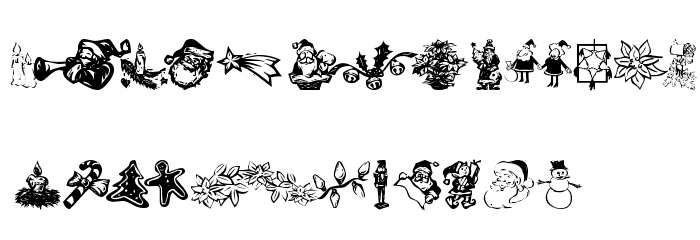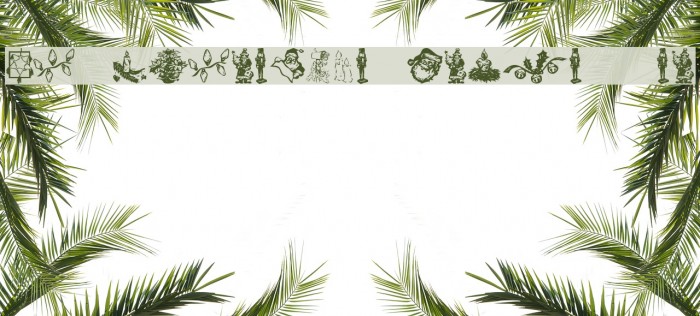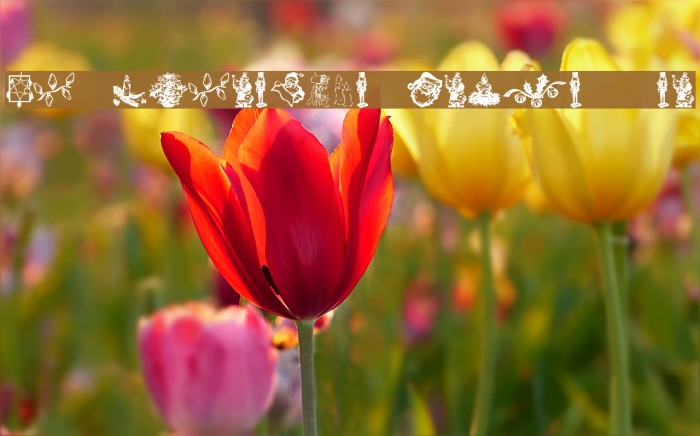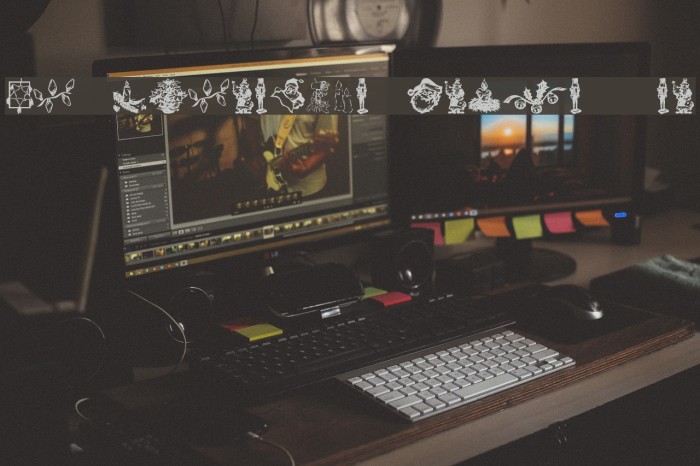
KR Christmas Dings 2004 Six Font
This decorative font is a collection of Christmas-themed dingbats, featuring a variety of festive icons such as Santa Claus, snowmen, Christmas trees, candy canes, and other holiday symbols. Each character is intricately designed to capture the essence of the holiday season, making it perfect for adding a whimsical and festive touch to any project. The illustrations are detailed and playful, embodying the joy and warmth associated with Christmas celebrations. The font is ideal for creative projects that require a touch of holiday spirit, such as greeting cards, holiday invitations, and festive decorations.
A festive collection of Christmas-themed dingbats perfect for holiday projects.
- Proposed Projects: Ideal for holiday greeting cards, festive invitations, Christmas decorations, and seasonal marketing materials.
- Use Case: Logos, Headlines, Decorative elements